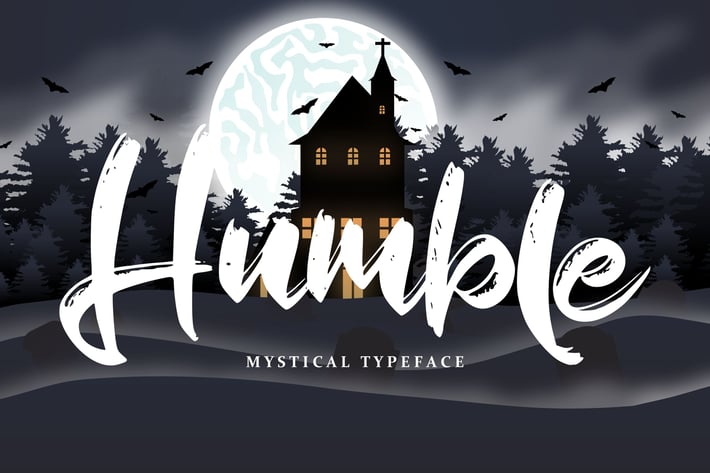
Humble | Mystical Typeface
Humble | Mystical Typeface with a calligraphy style, So beautiful on invitation like greeting cards, branding materials, business cards, quotes, posters, and more!